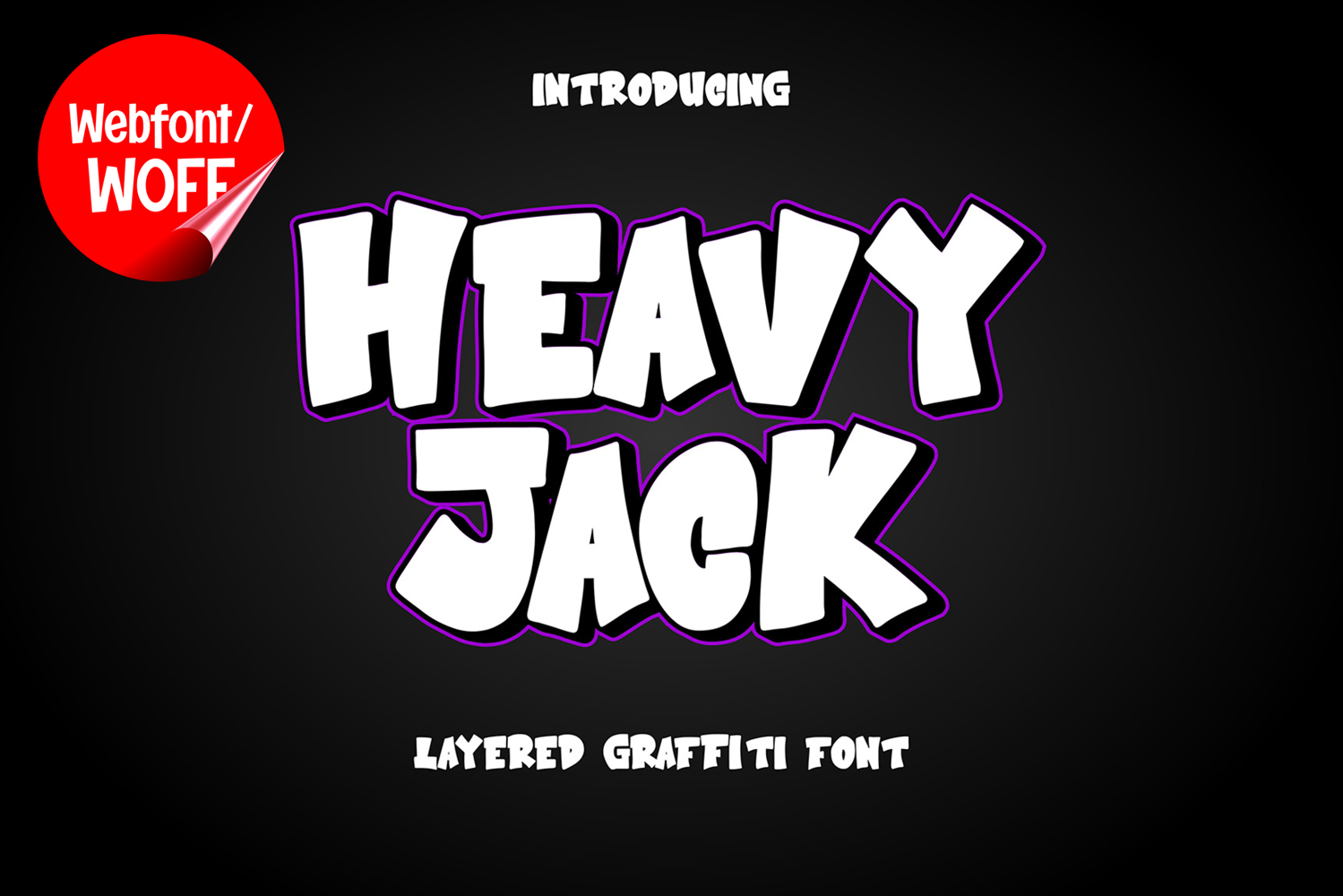
Heavy Jack | 3D Layered Graffiti Webfont for Bold Urban
Heavy Jack is a 3D layered graffiti webfont designed to bring bold street-art energy and powerful urban aesthetics into modern website design. Inspired by oversized graffiti murals, layered spray-paint lettering, and underground wall art culture, this font features thick letterforms and dimensional depth that create a strong and eye-catching visual identity. It is an excellent choice for projects that aim to deliver authentic graffiti visuals with maximum impact and creative street-style character.
Heavy Jack includes a complete set of uppercase characters designed with layered 3D graffiti aesthetics. The letterforms feature bold curves, energetic structures, and dimensional layering that create a dramatic and expressive street-art appearance. These characteristics make it ideal for headlines, banners, hero sections, promotional graphics, and featured content where strong urban visuals are needed.
In addition to letters, the font includes numbers and punctuation, allowing flexible usage across various parts of a website. It works well for streetwear branding, gaming websites, music platforms, hip hop projects, esports graphics, and creative portfolios. Each character maintains a consistent layered graffiti style, ensuring a cohesive and unified visual identity throughout the design.
With multilingual support, Heavy Jack includes a wide range of accented characters, making it suitable for international websites and global audiences. This ensures content remains clear and visually consistent across different languages while preserving the expressive and urban graffiti aesthetic.
The 3D layered graffiti style of Heavy Jack makes it especially suitable for urban-themed websites, entertainment campaigns, youth-oriented branding, and creative digital projects. Its dimensional structure and heavy appearance create a powerful street-art atmosphere that helps websites stand out in visually competitive environments. The layered depth and graffiti-inspired forms add movement, intensity, and authentic underground character.
Despite its decorative and highly expressive appearance, Heavy Jack is designed with readability in mind. The spacing and proportions are carefully balanced to ensure clarity, particularly in display sizes. This allows designers to use the font effectively for impactful headings and short content without sacrificing usability.
Heavy Jack is a webfont that combines layered graffiti aesthetics with modern digital performance. Its bold forms, dimensional depth, and urban character create a distinctive typographic presence that enhances website design. For projects that require a strong, edgy, and visually engaging graffiti font, Heavy Jack offers a versatile and powerful solution.